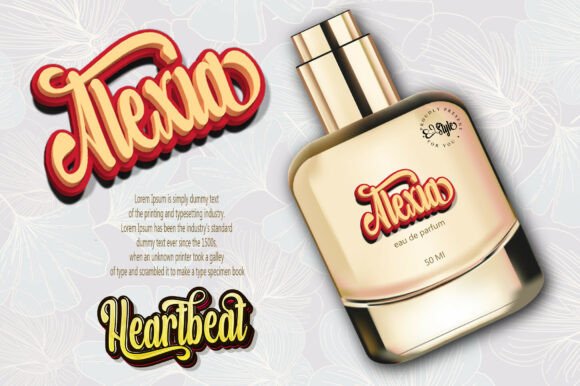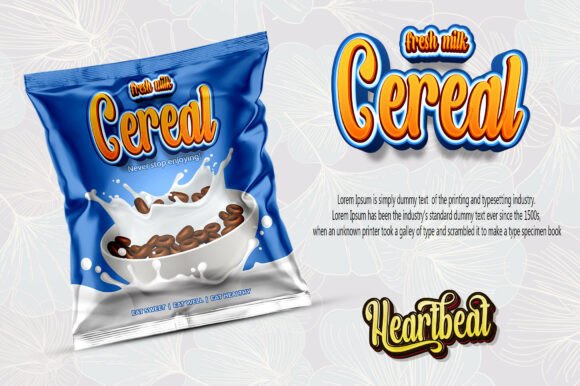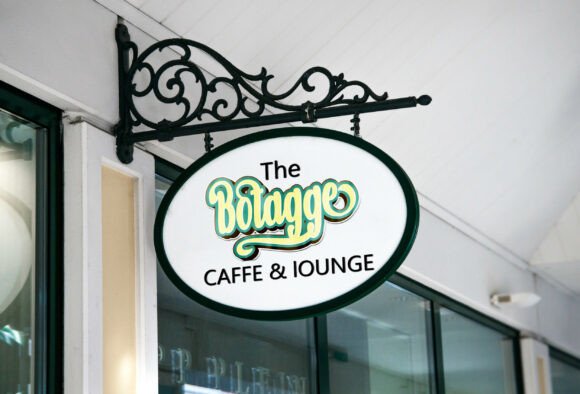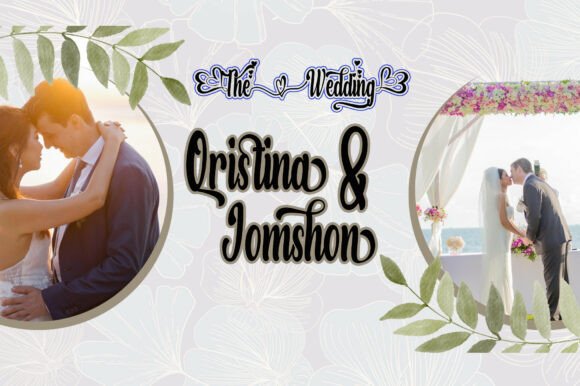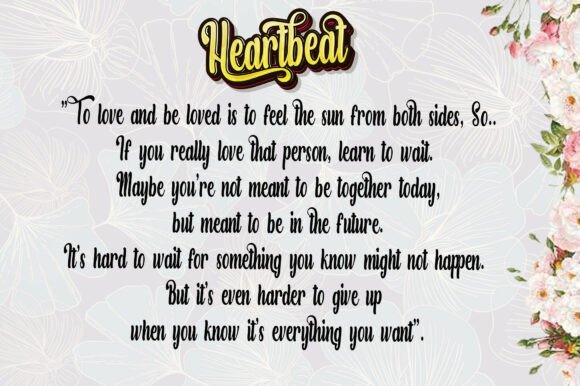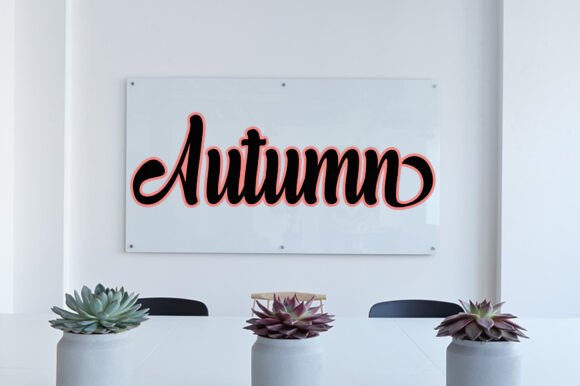
Introducing Heartbeat Font: The Whimsical Handwritten Font for Friendly Designs
Are you looking for a font that can add a touch of warmth and personality to your design projects? Look no further than Heartbeat Font, a whimsical handwritten font that perfectly captures a sweet and friendly sentiment. With its fluid strokes and organic lines, Heartbeat evokes a laid-back vibe that’s perfect for a variety of design applications.
The Characteristics of Heartbeat Font
Heartbeat Font is a unique and charming font that’s designed to bring a sense of joyfulness and approachability to your designs. Its fluid strokes and organic lines give it a natural, hand-crafted feel that’s perfect for creating friendly and inviting designs. The font’s whimsical nature makes it ideal for use in a variety of projects, from branding and invitations to social media graphics and more.
Whether you’re a designer or crafter, Heartbeat Font is the perfect addition to your toolkit. The font’s versatility and charm make it suitable for a wide range of design projects, including:
- Branding: Use Heartbeat Font to create a friendly and approachable brand identity that resonates with your target audience.
- Invitations: Add a touch of whimsy and charm to your invitations, from wedding invites to birthday party invitations.
- Social Media Graphics: Use Heartbeat Font to create engaging and eye-catching social media graphics that showcase your brand’s personality.
- Stationery: Add a personal touch to your stationery, from greeting cards to thank-you notes.
Why Choose Heartbeat Font?
So, why choose Heartbeat Font for your design projects? Here are just a few reasons:
- Unique and eye-catching: Heartbeat Font is a one-of-a-kind font that’s sure to grab attention and make your designs stand out.
- Easy to read: Despite its whimsical nature, Heartbeat Font is easy to read and understand, making it perfect for use in a variety of design applications.
- Versatile: Heartbeat Font can be used in a wide range of design projects, from digital designs to print materials.
- Warm and inviting: The font’s warm and inviting nature makes it perfect for creating designs that resonate with your target audience.
How to Use Heartbeat Font
Using Heartbeat Font is easy! Here are a few tips to get you started:
- Pair it with other fonts: Experiment with pairing Heartbeat Font with other fonts to create a unique and eye-catching design.
- Use it in digital designs: Heartbeat Font is perfect for use in digital designs, from social media graphics to website headers.
- Experiment with colors: Try out different colors and color combinations to find the perfect match for your design.
In conclusion, Heartbeat Font is a whimsical handwritten font that’s perfect for designers and crafters looking to add a touch of warmth and personality to their design projects. With its fluid strokes and organic lines, Heartbeat evokes a laid-back vibe that’s perfect for a variety of design applications. So, light up your creations with a sprinkle of joyfulness and an inviting warmth that this unique font epitomizes.